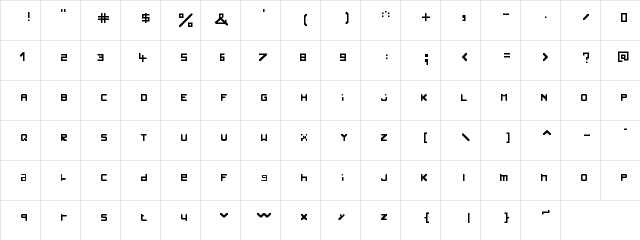
vinc Regular Font Preview
vinc Regular
vinc Regular Font Details
| Designer | vinc |
Design Context for vinc Typeface
vinc offers clean, dependable letterforms without strong stylistic allegiance, making it a practical choice for designers who need flexibility.